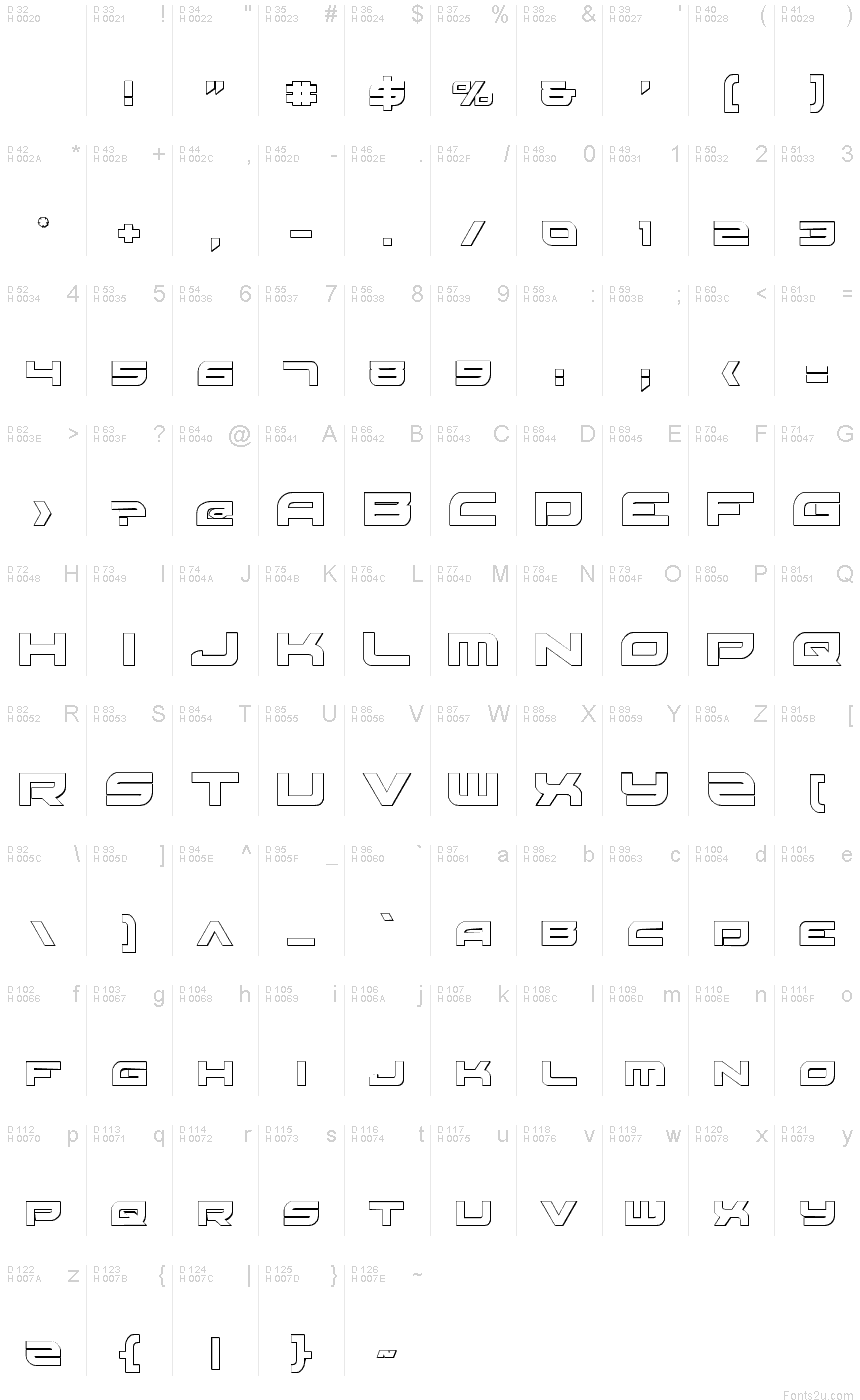
Red Rocket 3D by Daniel Zadorozny of Iconian Fonts is a free futuristic outlined display font with broad, low-slung capitals. Rounded outer corners meet squared interiors, and clipped horizontal strokes give the lettering a streamlined mechanical profile.
It can turn a title into part of a spacecraft panel, arcade cabinet, or racing emblem rather than ordinary text. The extended proportions suit game graphics and science fiction posters, especially when speed, machinery, or engineered surfaces shape the theme. Its open interiors and linear cuts also make sense for motorsport merchandise and electronic music artwork.